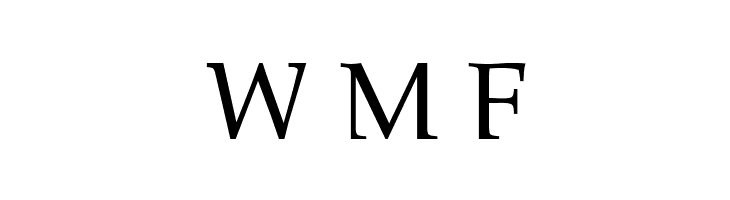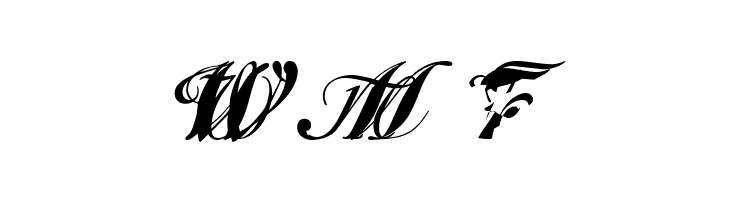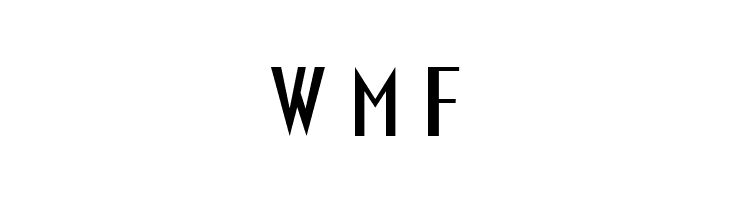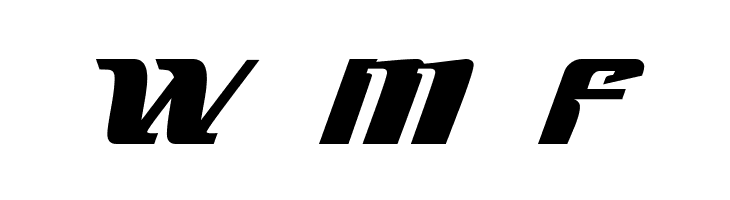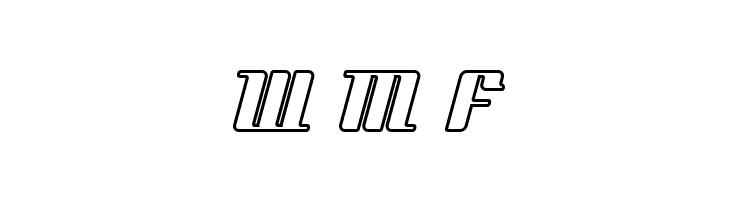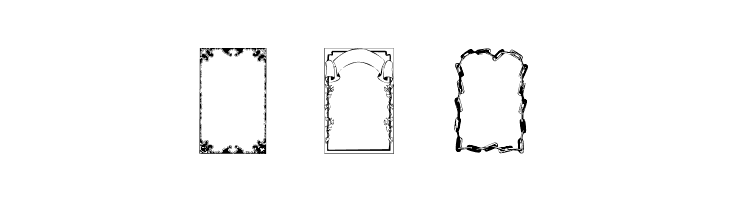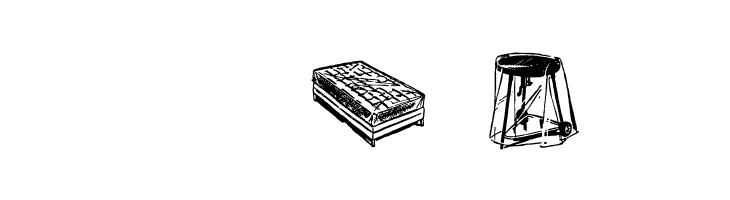
A classic serif font with high contrast and elegant strokes.
An elegant script font with flowing, cursive letterforms and ornate details.
A clean, modern font with clear, consistent characters and Japanese katakana elements.
A bold, rounded sans-serif font with smooth curves and consistent strokes.
A dynamic, italicized font with a sleek, modern style.
A bold, modern font with geometric and sleek design elements.
A bold, outlined font with a modern, dynamic slant.
A pictorial, hand-drawn display font using household and vintage item illustrations.